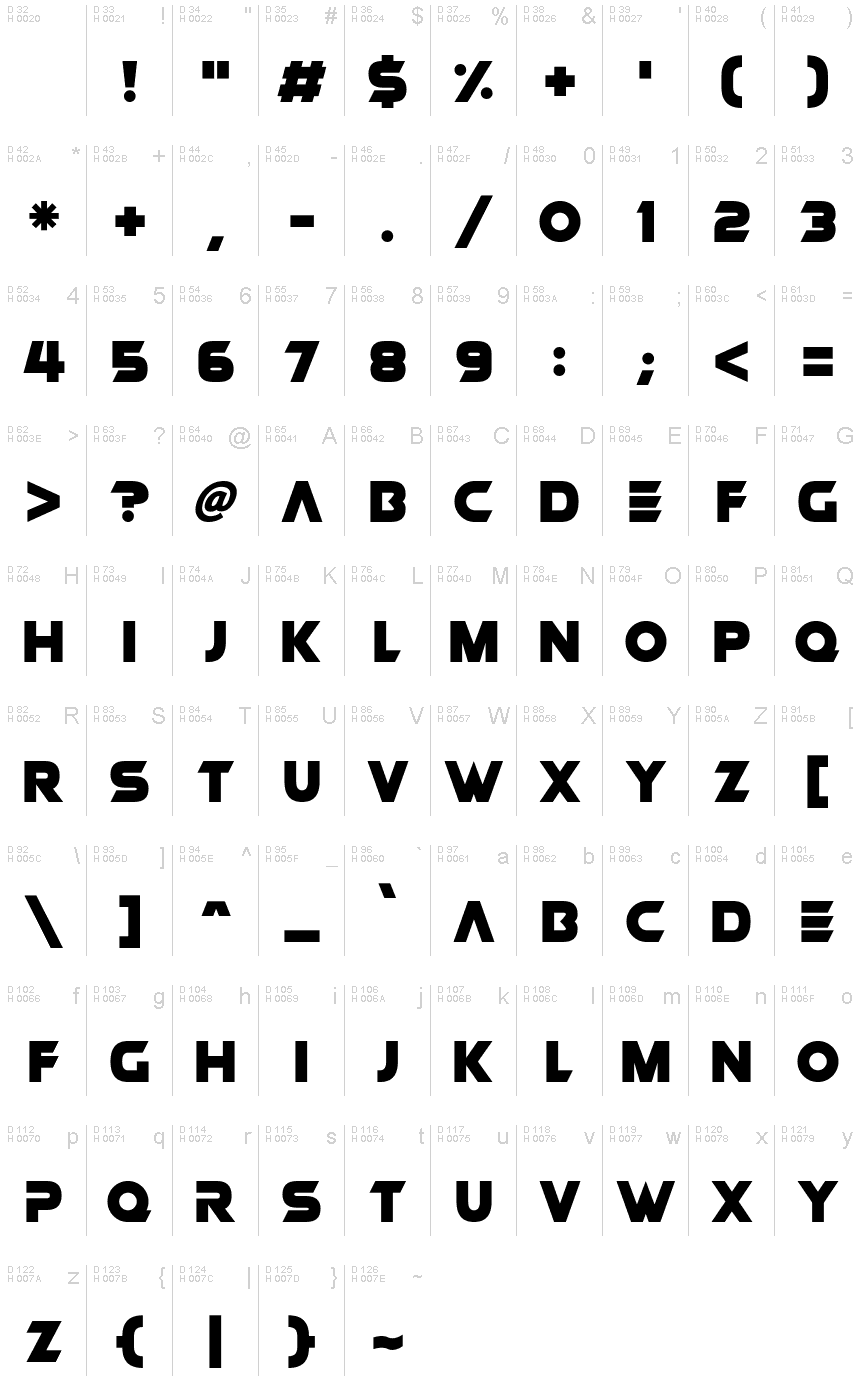
Space Crusaders
Boldly go where no font has gone before with Space Crusaders, a futuristic display typeface designed by Darrell Flood. With its extra-bold weight and expanded width, Space Crusaders demands attention and makes a statement. Perfect for projects that aim to convey a sense of exploration, adventure and discovery such as sci-fi posters, gaming logos, technology websites or even fashion editorials. This font will make any project shine with its sleek curves and smooth edges. So strap in and get ready to blast off into the future with Space Crusaders!